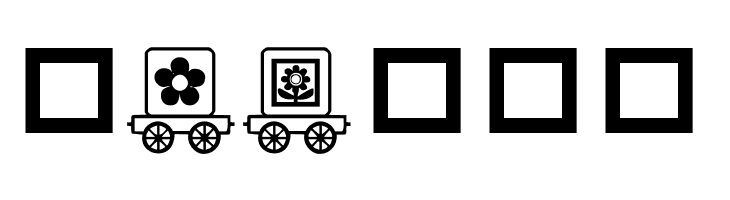
A whimsical train-themed font with letters and numbers in train cars.
A bold, bomb-themed decorative font with explosive character designs.
A playful, bug-themed decorative font with characters inside beetle shapes.
An ornate, decorative font with vintage-style framed characters.
A decorative font with letters encased in floral-like circular designs.
A decorative font with uppercase letters in floral circular borders.
A playful font with characters inside cartoon chicken outlines, perfect for fun designs.